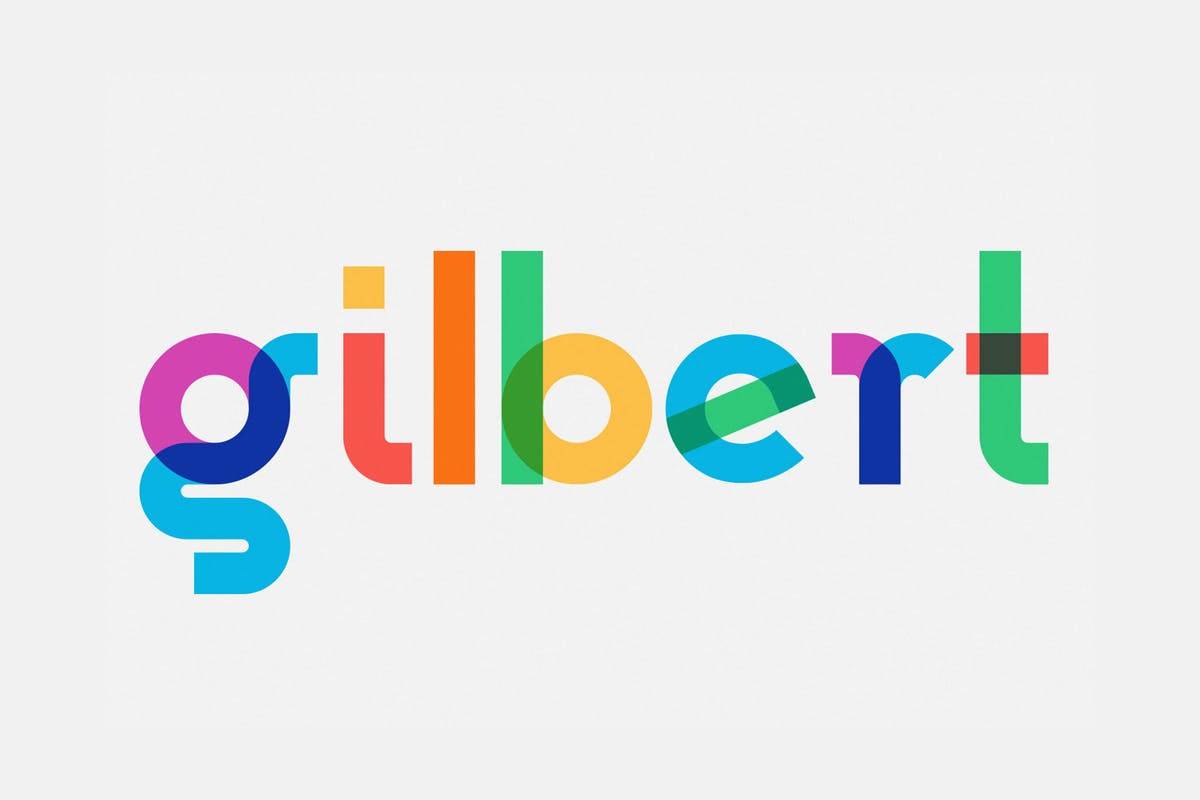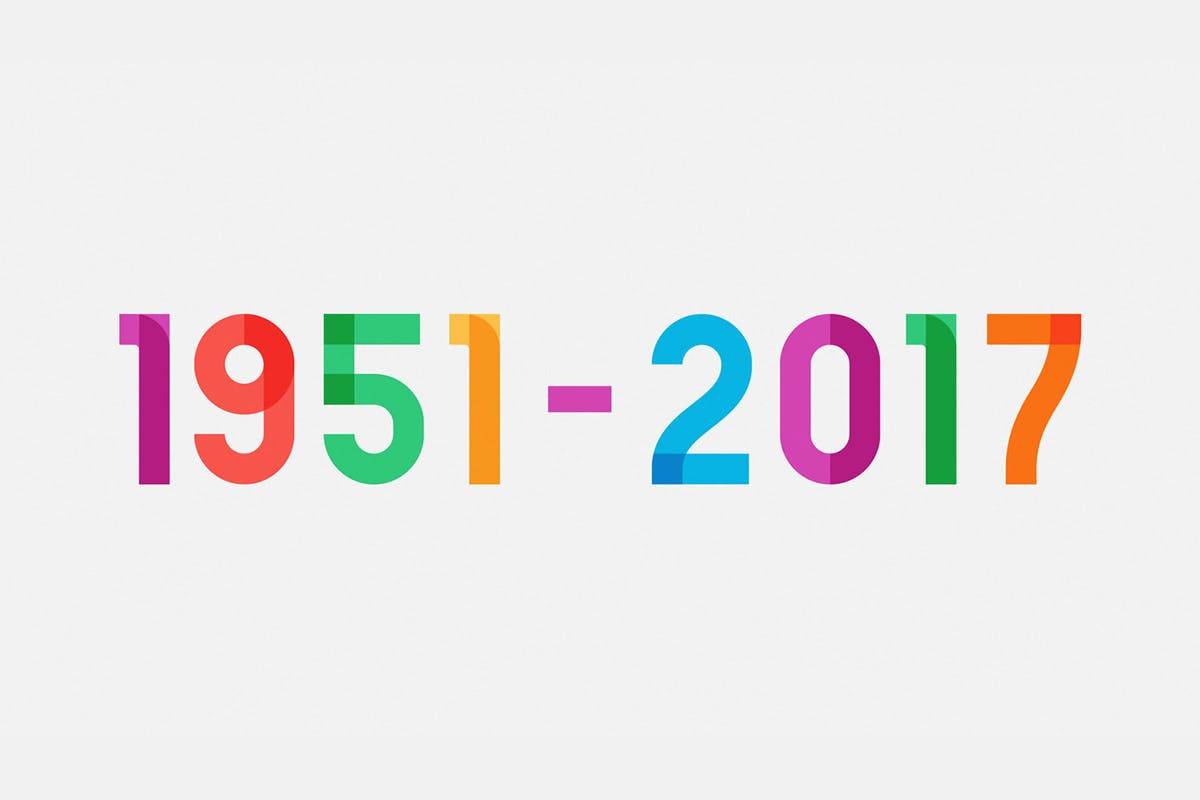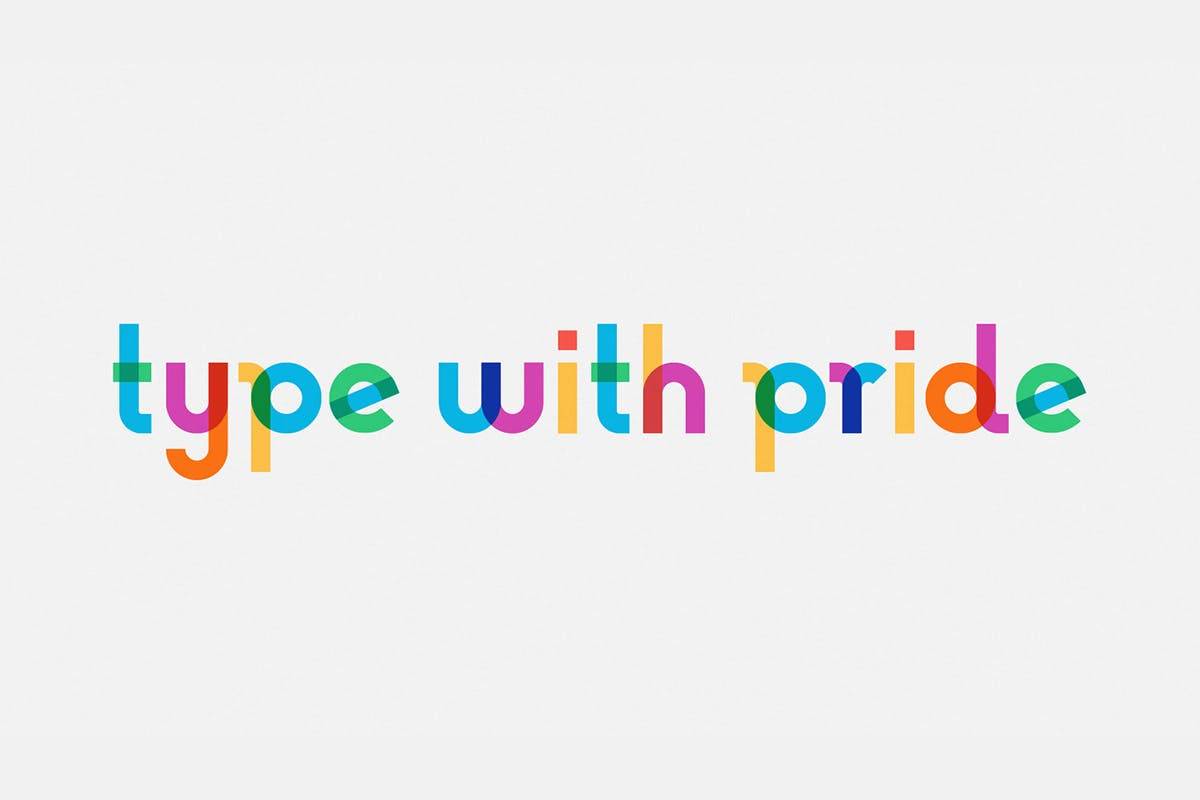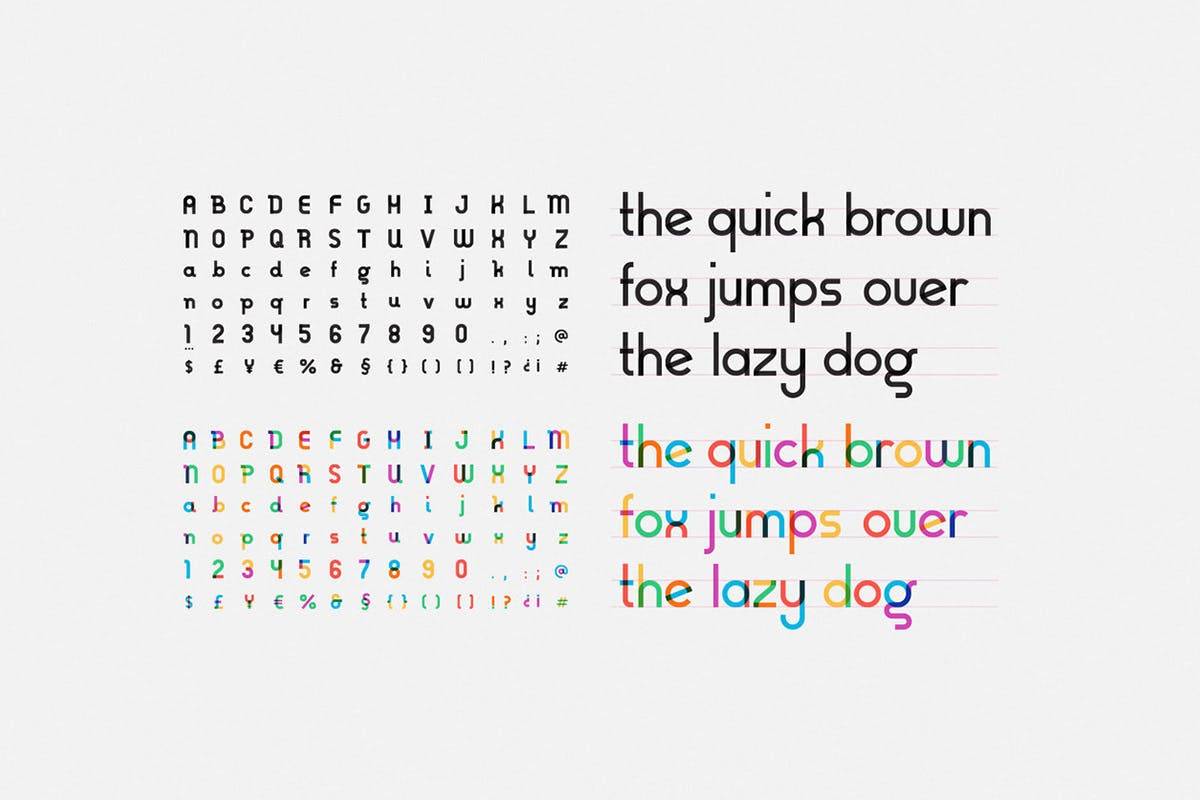
Gilbert Animated Typeface is a bold, geometric sans serif font with a playful and modern personality. Its strong weight and unique letterforms, featuring rounded edges and quirky curves, make it ideal for eye-catching headlines, logos, and branding that seeks a friendly yet confident vibe. This font works especially well in creative and youthful contexts, adding character and vibrancy to posters, packaging, and digital media.
Gilbert Animated Typeface
About Gilbert Animated Typeface
| Font family | Gilbert Animated Typeface |
| Designer | Robyn Makinson, Kazunori Shiina, Hayato Yamasaki |